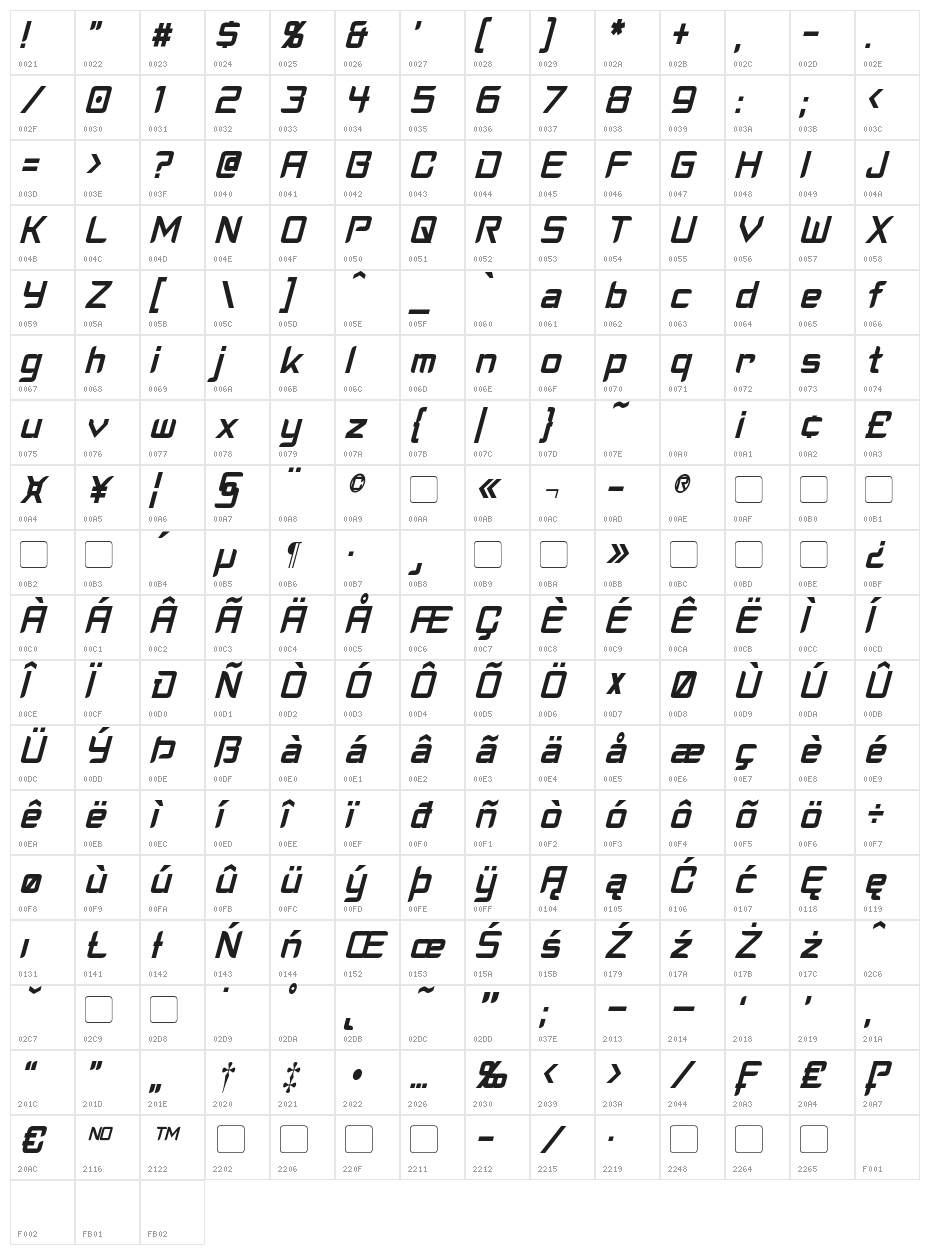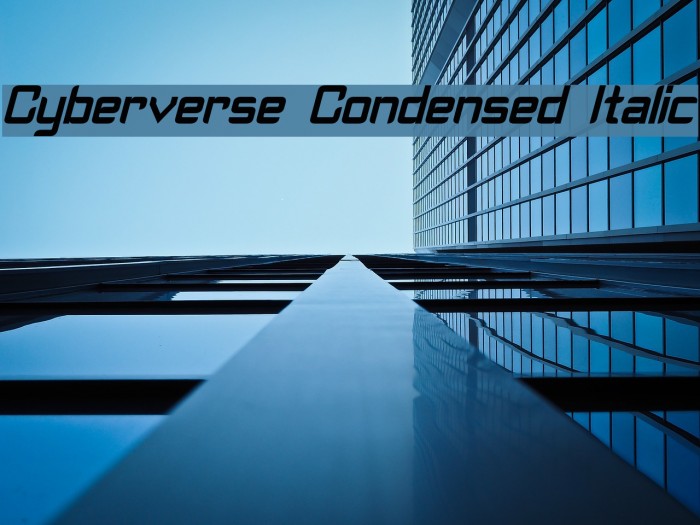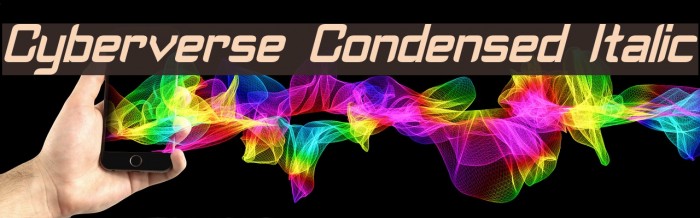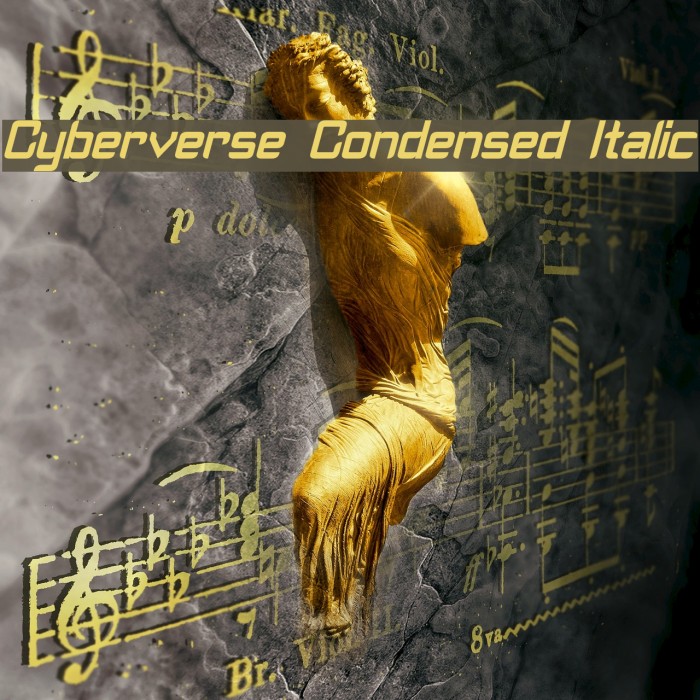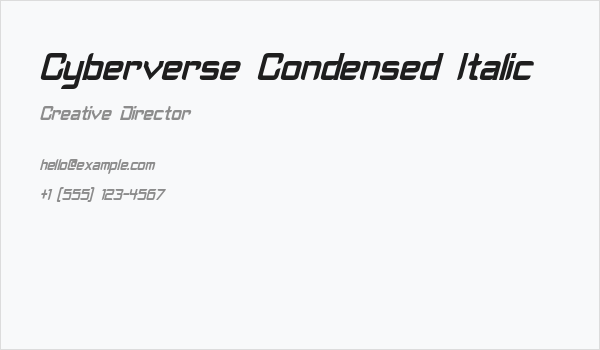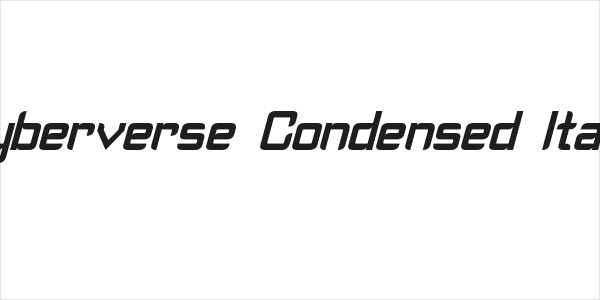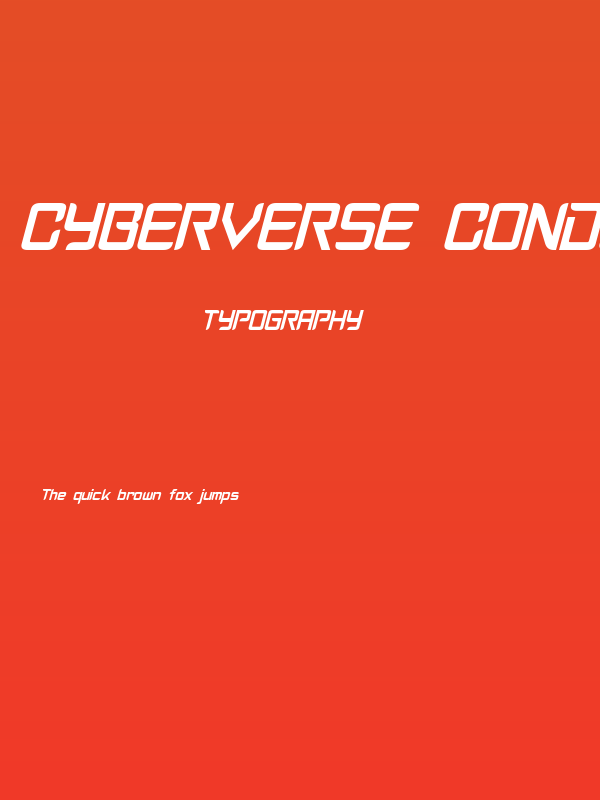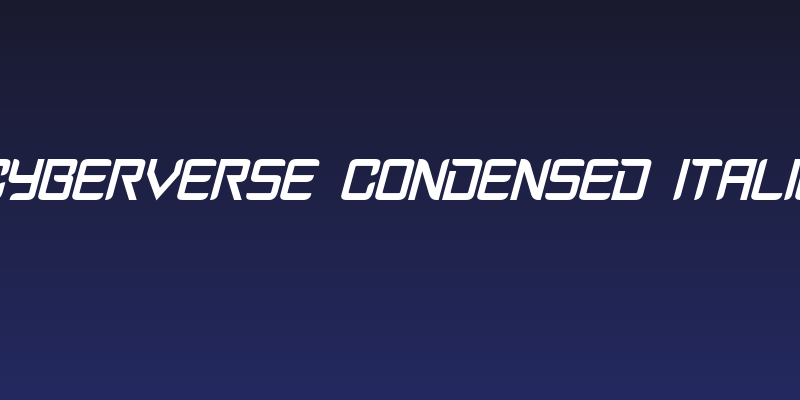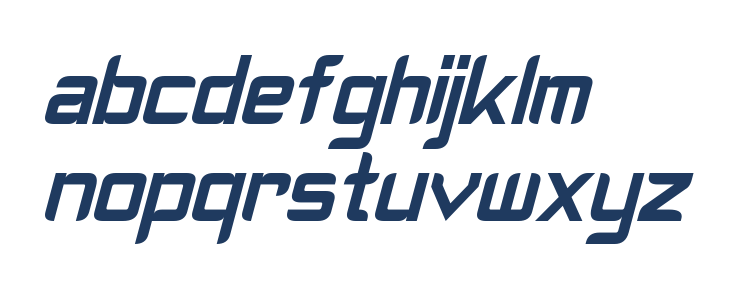
Cyberverse Condensed Italic Font
Cyberverse Condensed Italic Description
This font features a futuristic and sleek design, characterized by its condensed and italicized form. The letters are angular with sharp edges, giving it a dynamic and modern appearance. The uppercase and lowercase letters maintain a consistent style, with a slight slant that enhances its italic nature. The numerals and special characters are designed to match the overall aesthetic, ensuring uniformity across all glyphs. The font's condensed width allows for efficient use of space, making it suitable for various design applications where a modern and technical look is desired.
| Proposed Projects | Ideal for tech branding, sci-fi themed projects, video game interfaces, and modern advertising. |